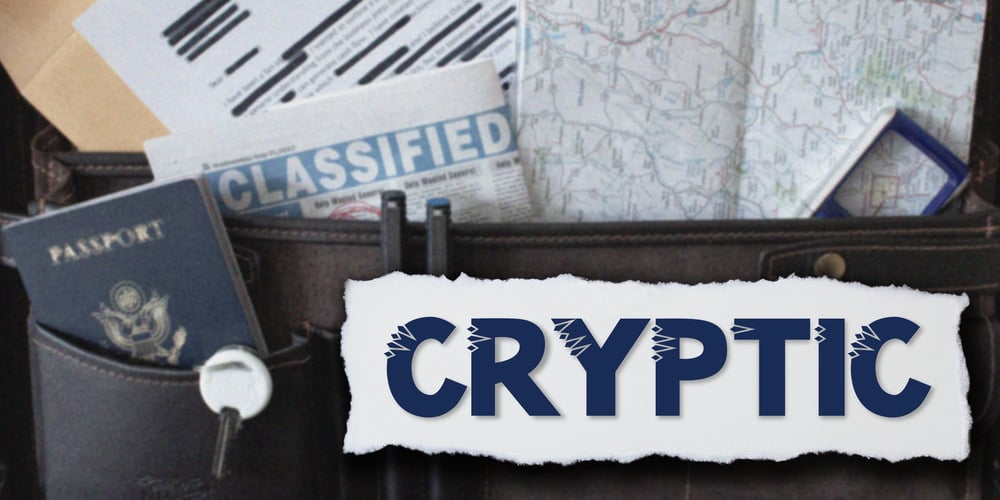
Cryptic Font Family was designed by Jessie Parker and published by Jessie Makes Stuff. Cryptic contains 15 styles and family package options. Cryptic is a font family of caps and small caps whose unique design was inspired by Morse Code. The traditional dots and dashes have been re-imagined as diamonds that you can read from top to bottom on the letters themselves. Secret code hidden within the letters, hence – Cryptic.This font family is truly versatile! The letters are all based on the character shapes of the Naked style, and all the diamonds have the same proportions, so you can stack and layer as many as you like to create a custom look for any project. Cryptic is perfect for website headers, posters, t-shirts, billboards, book covers, SVG cutting files, and anything else you want to add a little mystery, intrigue, or glitz to. Please note that some styles are better suited for larger scale projects to show off the fine details.